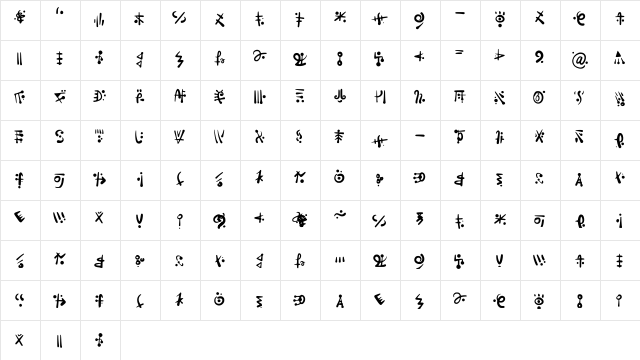
Alien_Hieroglyph Medium
Design Context for Alien_Hieroglyph Typeface
Alien_Hieroglyph is a composed and adaptable typeface that performs quietly and consistently across a wide range of design contexts.
Pro Tip: Use Alien_Hieroglyph in both headline and body roles to test its range before committing to a single application.